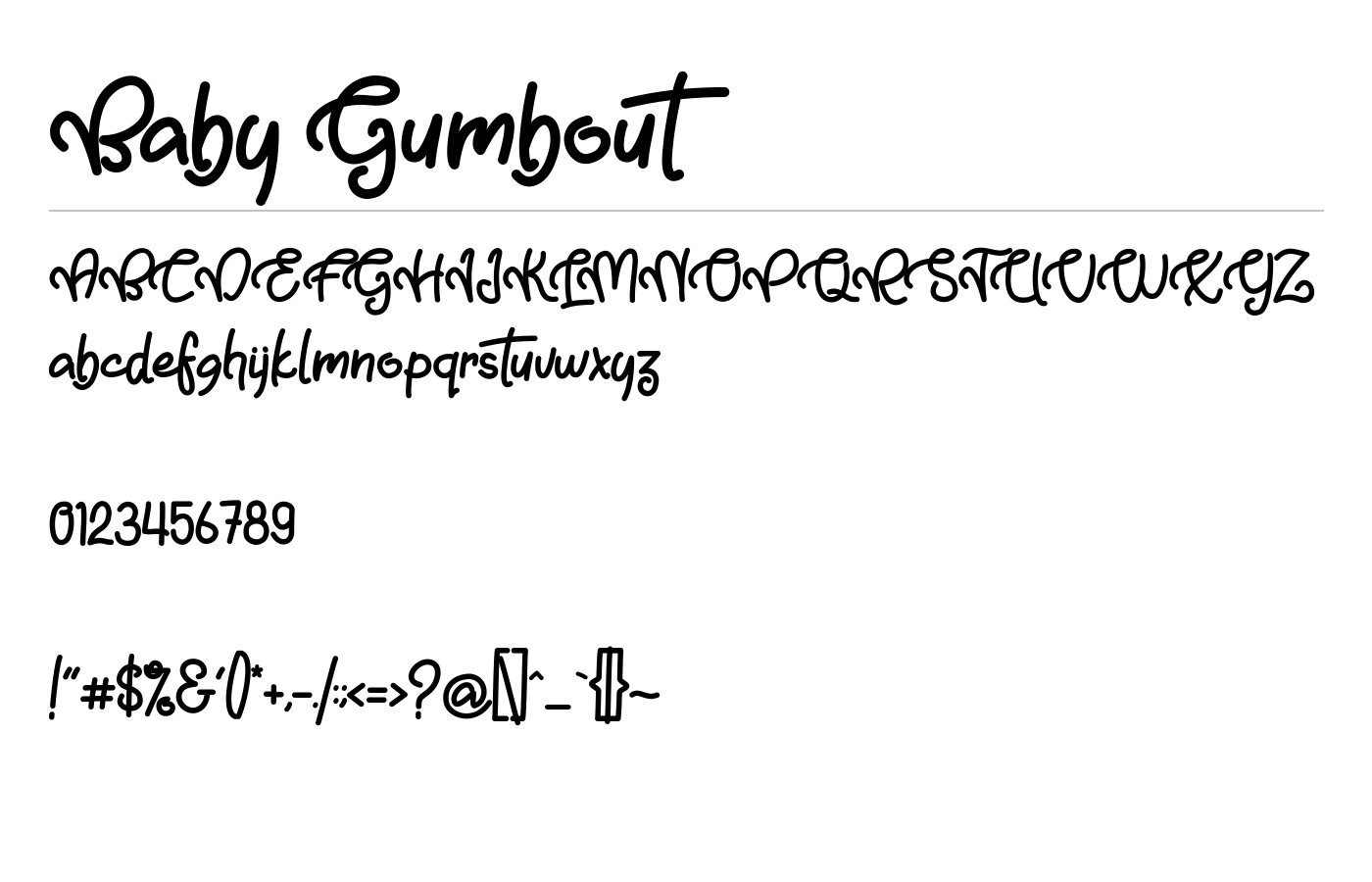
Baby Gumbout is a playful and quirky handwritten script font characterized by its lively, rounded strokes and informal style. Its medium weight and casual, flowing letterforms give it a friendly, approachable feel, making it ideal for creative projects, branding for children’s products, or fun, casual headlines. This font works well where a personal, imaginative touch is needed, adding charm without sacrificing readability.
Baby Gumbout Font
About Baby Gumbout Font
| Font family | Baby Gumbout Font |
| Designer | Mabhal Studio - Abdullah, Banten - Indonesia |